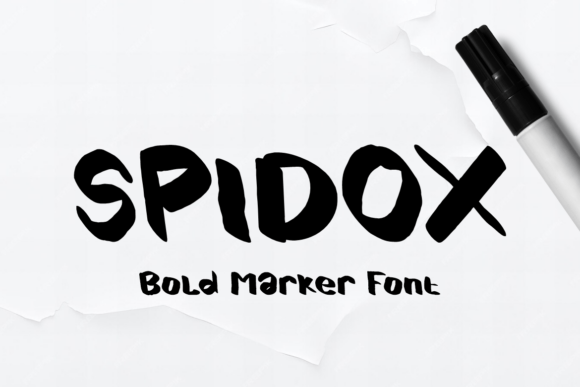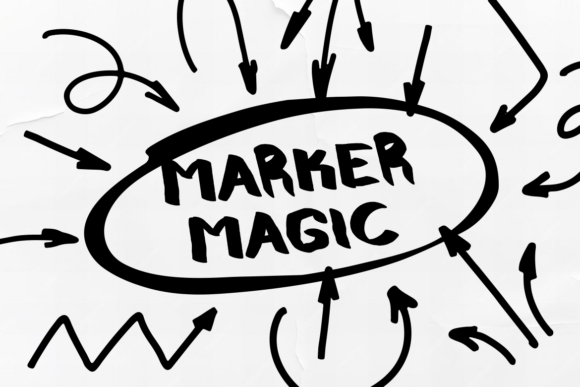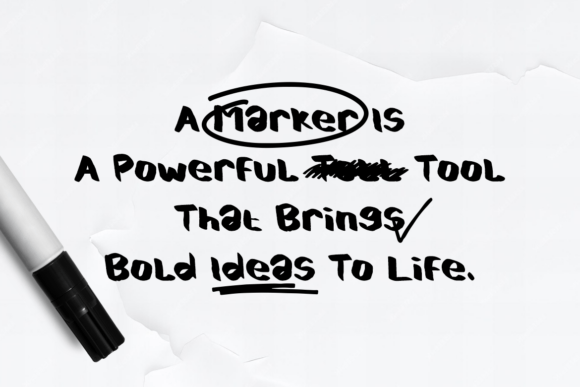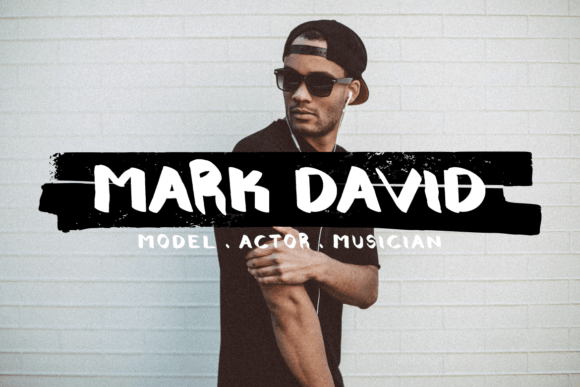
Spidox Font: A Bold Marker Display Font for Creative Headlines & DIY Projects
About the Spidox Font
Discover the charm of Spidox Font. This font is a perfect blend of modern aesthetics and classic appeal. Spidox – Bold Marker Font
Introducing Spidox – Bold Marker Font, a typeface that captures the essence of street art and brings it to your digital canvas. This handbrush display font, with its rough and ready texture, mimics the strokes of a spidol pen, creating an authentic urban sketch feel. Each character in Spidox is crafted to exude coolness and a freestyle spirit, reminiscent of graffiti art sprayed across city walls. The bold monoline characters make a statement on any surface, be it virtual or physical.
Spidox is not just a font; it’s an attitude. It’s perfect for those who want their logos to stand out with an edgy flair or for crafting invitation cards that demand attention. Packaging designs, posters, business branding – all benefit from Spidox’s assertive presence. Movie titles become more gripping, greeting cards more personal, and book covers more intriguing. Whether you’re designing stickers or setting up the next headline for a trendy magazine, Spidox adds that bold marker touch that can’t be ignored.
Spidox Font Usage Examples
Spidox Font Example